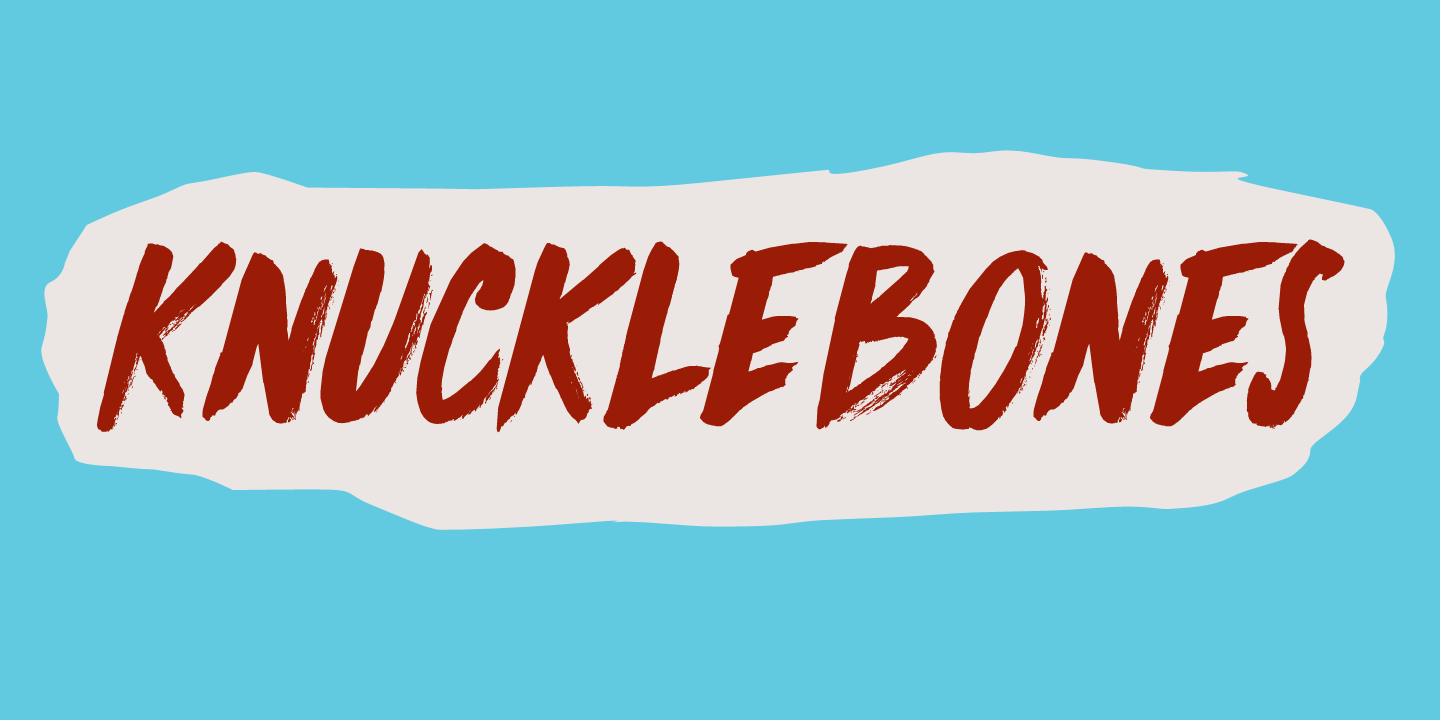
The Knucklebones Font Free Download is ideal for posters, album covers, product packaging, and bold branding, offering a gritty, hand-painted aesthetic.
This font is exciting because its rough, brush-stroke design, inspired by a Mongolian knucklebones game, delivers a raw, energetic vibe for dynamic projects.
The Knucklebones family includes Regular, Italic, and Upright styles, providing versatile options for creative typography.
Unleash bold creativity with the Knucklebones Font Free Download, a brush display typeface designed by David Kerkhoff and published by Hanoded in 2017. Inspired by a set of sheep knucklebones found in Mongolia, Knucklebones features a textured, hand-painted look with three styles: Regular, slightly slanted; Italic, heavily slanted; and Upright, bold and straight. Perfect for crafting striking headlines or edgy logos, this all-caps font includes 145+ glyphs and supports multiple formats (OTF, TTF, WOFF). As 2025 design trends favor expressive, gritty typography, downloading Knucklebones Font Free Download keeps your work vibrant and impactful. Test it today at dafont.com for personal use, and consider purchasing the full version at hanodedfonts.com for commercial projects.